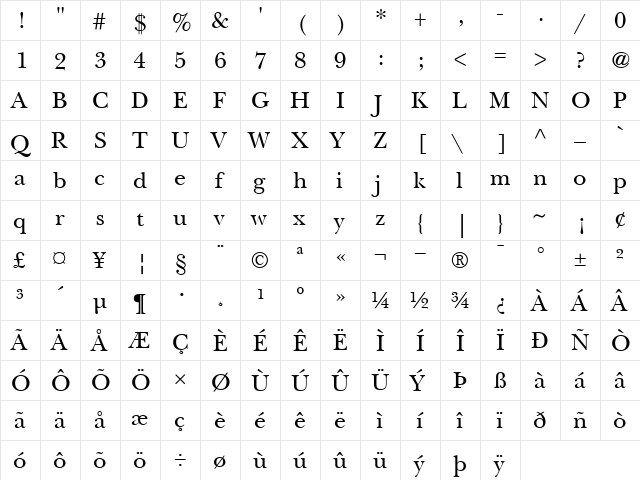
ITCNewBaskervilleRoman Roman
Design Context for ITCNewBaskervilleRoman Typeface
ITCNewBaskervilleRoman is a composed and adaptable typeface that performs quietly and consistently across a wide range of design contexts.